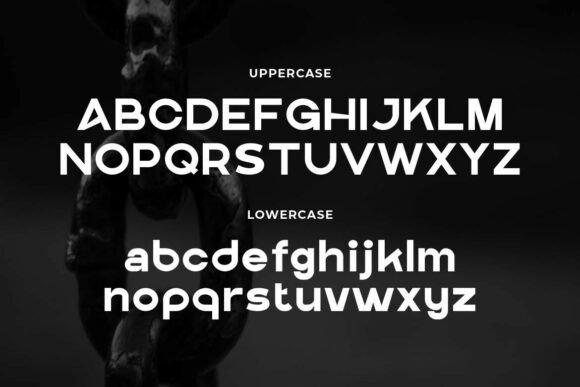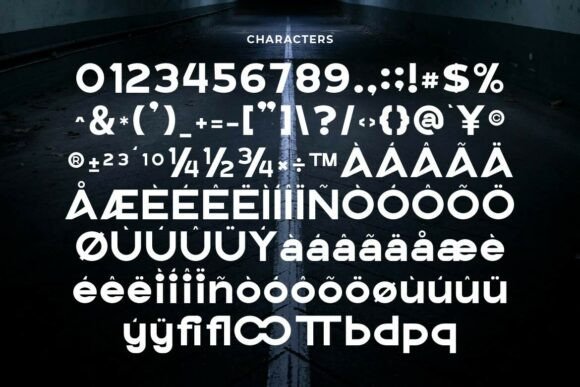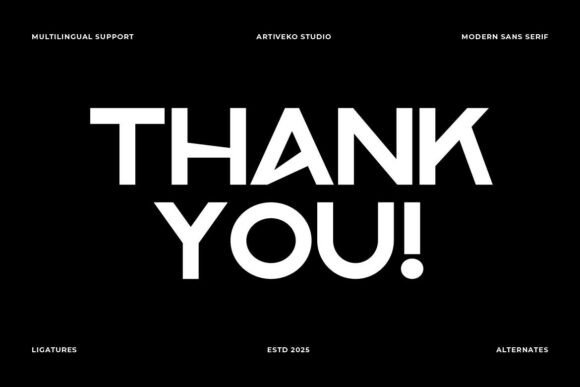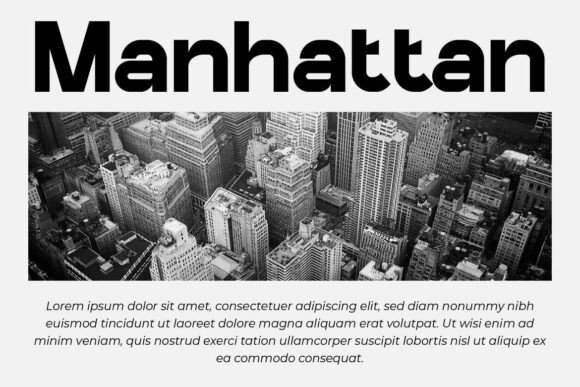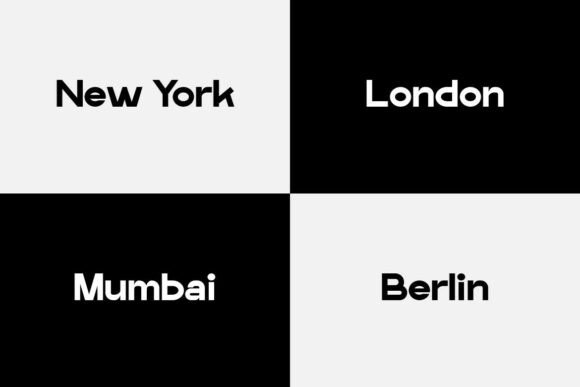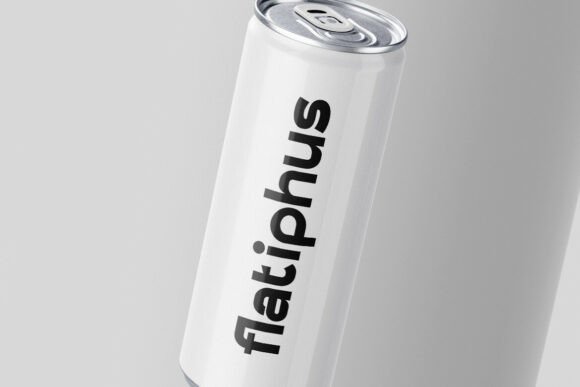
Unleashing Creativity: The Power of Altere Font
As a designer, there’s nothing quite like the thrill of bringing a new project to life. You’ve got a blank canvas, a spark of inspiration, and a vision to share with the world. But sometimes, the key to unlocking that vision lies in the smallest details – like the font you choose to tell your story.
Enter Altere Font, a sleek and modern sans serif font designed to elevate your creative endeavors. With its streamlined geometry, elegant spacing, and contemporary flair, Altere is the perfect partner for branding, logo design, packaging, posters, and digital layouts that demand a perfect balance of simplicity and visual impact.
For designers who crave clean aesthetics and a visual punch, Altere Font is a valuable addition to any toolkit. Its versatility and sophistication make it an ideal choice for projects that require a touch of modernity and a dash of creativity.
Altere Font Key Features
- Font Family: Altere Font is a sans-serif typeface designed for modern and clean typography.
- Character Set: The font includes a comprehensive set of characters, including Latin, Cyrillic, and Greek alphabets, as well as punctuation marks and symbols.
- Unique Characteristics: Altere Font features a distinctive, modern design with clean lines, geometric shapes, and a subtle x-height, making it ideal for use in digital and print media.
Altere Font Review
Overall, I’d say Altere Font is a decent addition to any font library. There are some nice touches that make it stand out, and it’s certainly worth a closer look.
- Unique style: Altere Font has a distinct, modern feel that sets it apart from more common fonts.
- Good for titles: The font’s bold lines and strong structure make it perfect for use in headings and titles.
- Legible at various sizes: I found that Altere Font remains clear and easy to read even when scaled up or down.
- Limited versatility: While Altere Font is great for titles, it may not be the best choice for body text, where a more traditional font might be more suitable.
- Not ideal for small text: The font’s bold lines can make it difficult to read when used in smaller sizes.
- No language support: I noticed that Altere Font only includes Latin-based characters, which may limit its use in non-English languages.
Overall, I’d give Altere Font 3.5 out of 5 stars. It’s a solid choice for certain projects, but it may not be the best fit for every design task. With a bit more polish and expansion, it could be a truly standout font.
For optimal results, use Altere Font in headings or titles to add a touch of elegance and sophistication.
For best results, use Altere Font in combination with other elegant fonts to create a cohesive design.
For optimal results, use Altere Font in headings or titles to add a touch of professionalism and sophistication.
Altere Font is ideal for:
- Editorials and magazine layouts
- Book covers and interior design
Alternatives to Altere Font for Designers
Lato Font is a clean and modern sans-serif font designed by Łukasz Dziedzic. It’s ideal for use in digital products, such as websites, mobile apps, and e-books, where readability is crucial. Lato Font is similar to Altere Font in terms of its clean and minimalist design, but it has a more subtle and elegant feel to it.
Montserrat Font is a sans-serif font designed by Julieta Ulanovsky. It’s inspired by the urban typography of Buenos Aires and is perfect for use in titles, headings, and body text in digital products. Montserrat Font is similar to Altere Font in terms of its modern and clean design, but it has a more geometric and industrial feel to it.
What is the recommended line height for Altere Font?
The recommended line height for Altere Font is 1.2-1.5 times the font size. This line height provides a comfortable reading experience and allows for adequate spacing between lines of text. To achieve this line height, use the line-height property in CSS or adjust the line height in your design software.